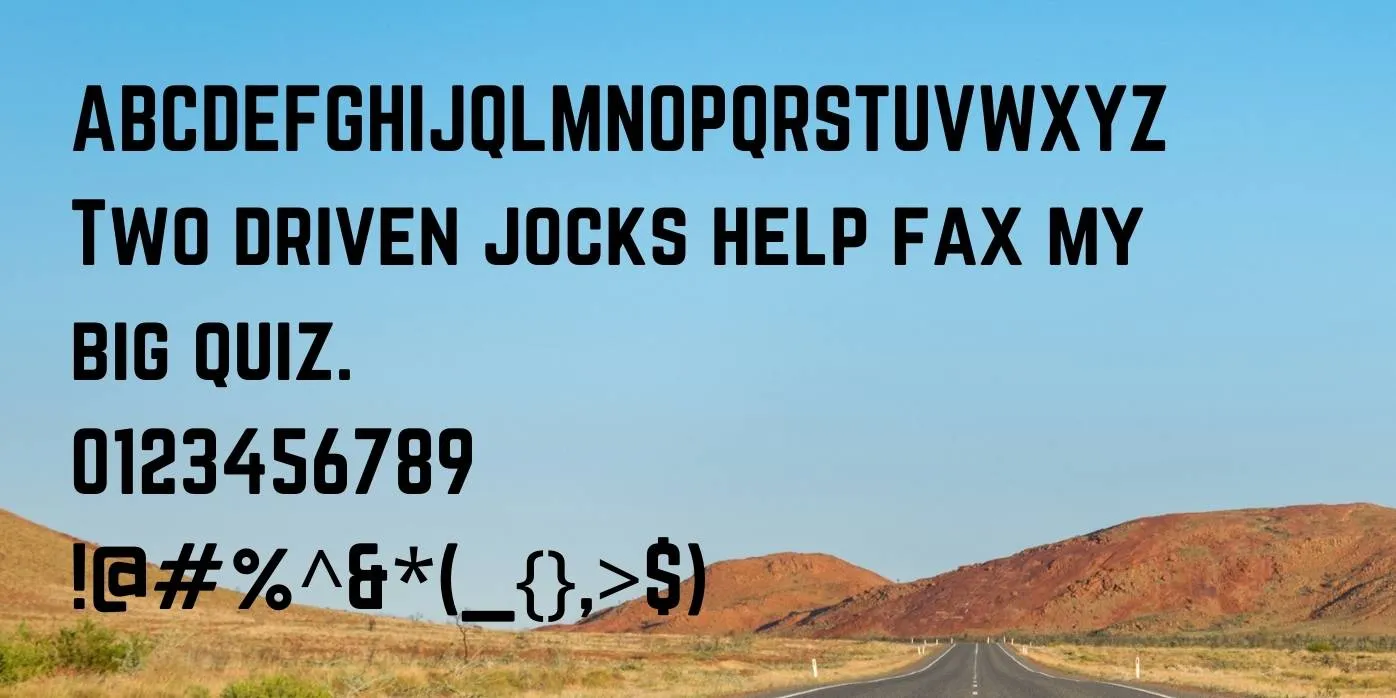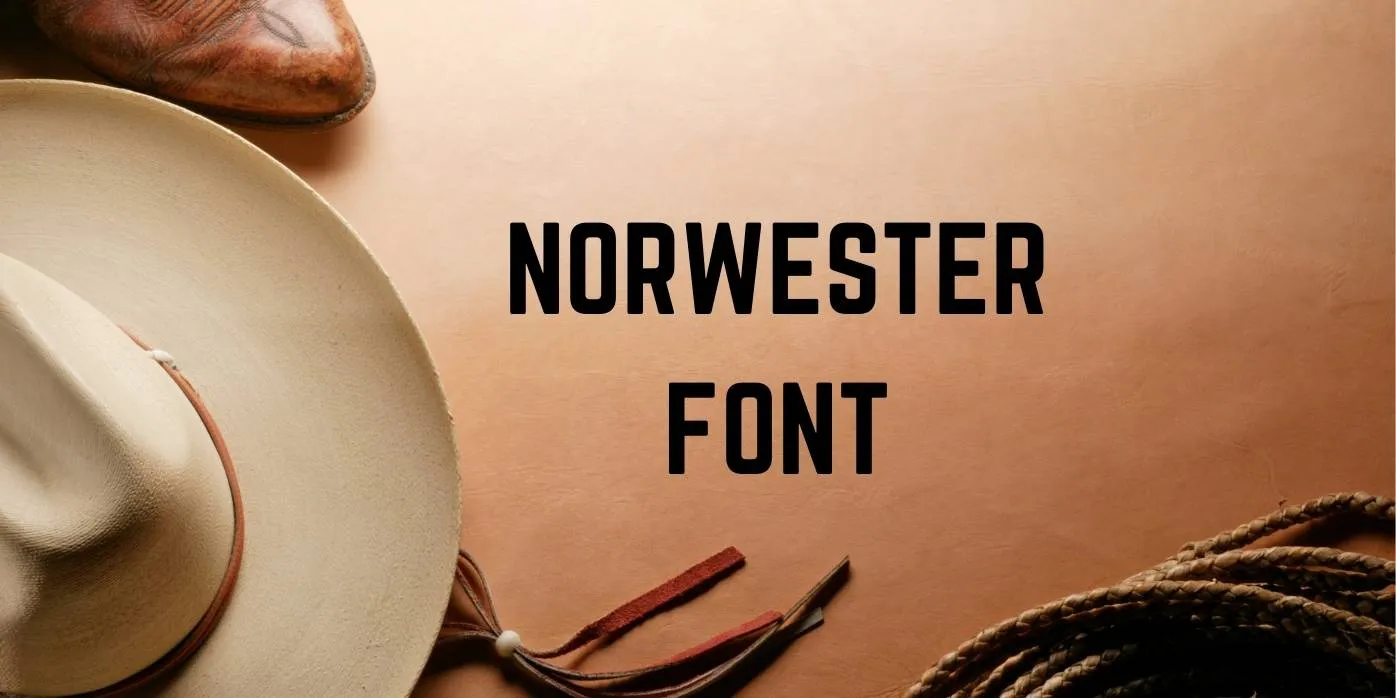
Norwester Font
Norwester font is a cool and outstanding typeface with bold style and unique visuals. It belongs to a Sans serif family and the designer of this typeface is Jamie Wilson. It is free for commercial also. The font family has beautiful condensed characters that are perfect for visual or legible projects.
It is useful for CSS (Cascading Style Sheet) and other designing software. The font provides the best presentation with the pairing of Gotham Font. It has OpenType Layout and TrueType Outlines with Uppercase letters, Lowercase Letters, Numbers and Numerals, and many beautiful symbols also. You may also generate this stunning and high-standard typeface from the online generator tool even without downloading.